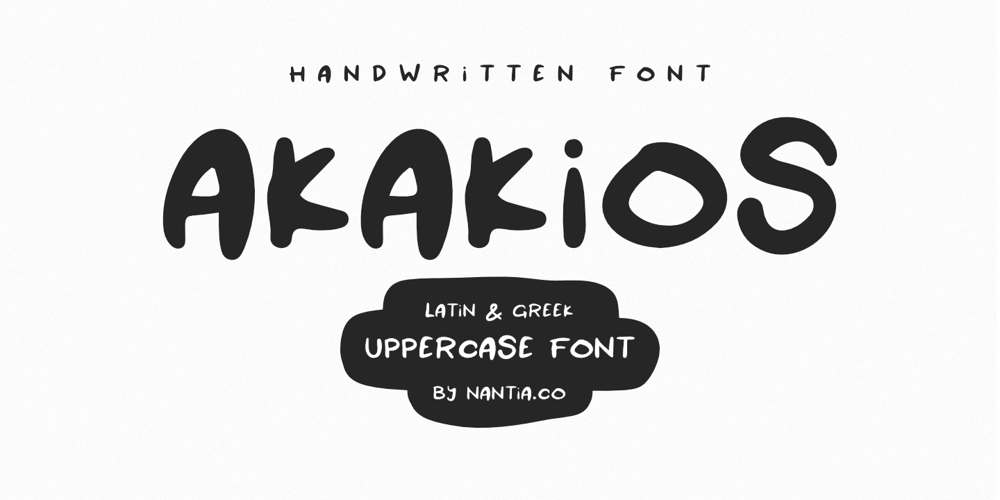
Akakios Font Family was designed by Konstantina Louka and published by Nantia.co. Akakios contains 1 styles and family package options. Akakios uppercase font is an adorable hand-made typeface with a lot of charisma. From “hand-written” quotes to product packaging, merchandise, and branding projects, this font is so versatile that it can cover them all. Greek character set included.